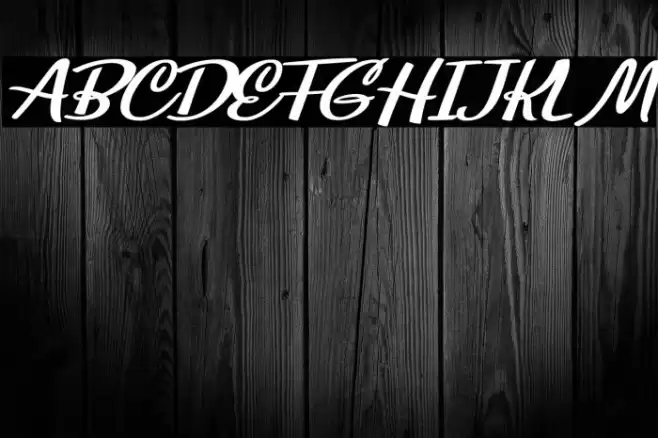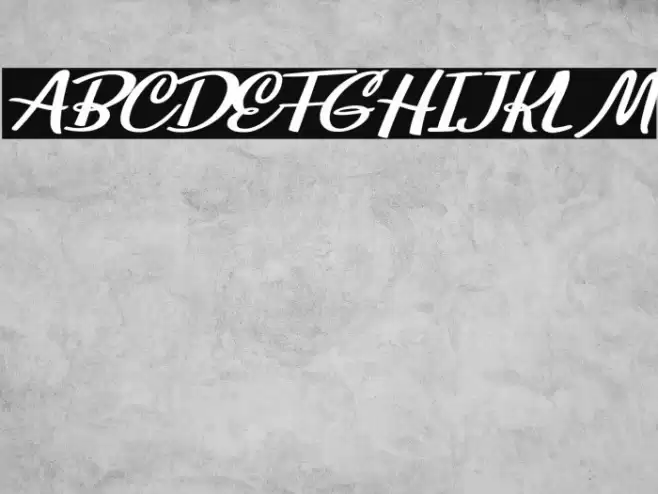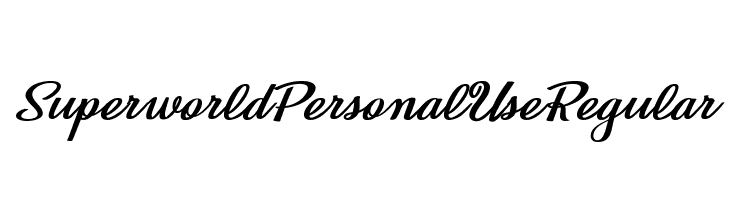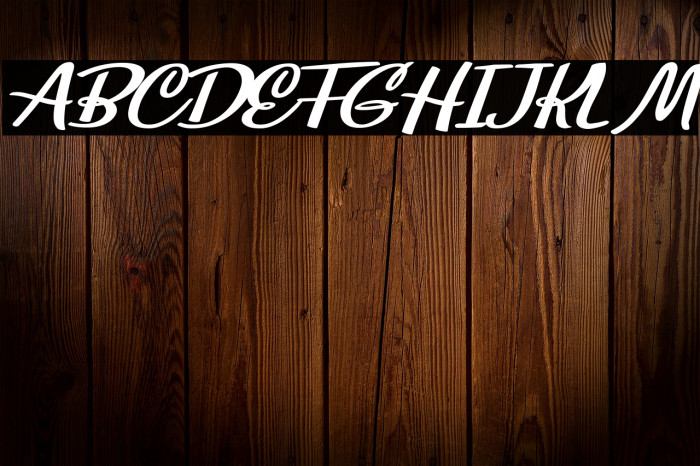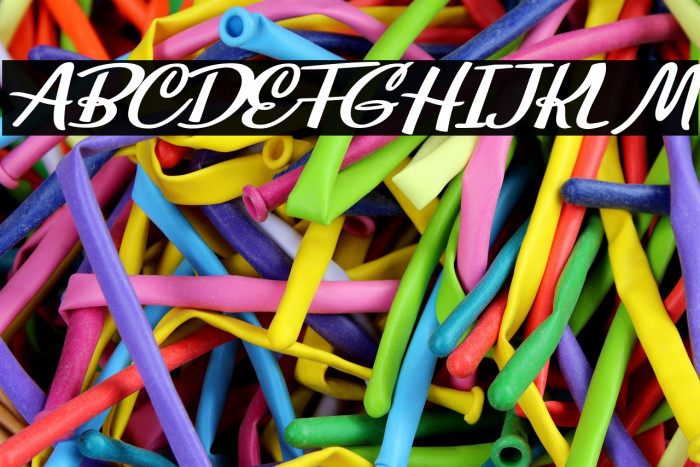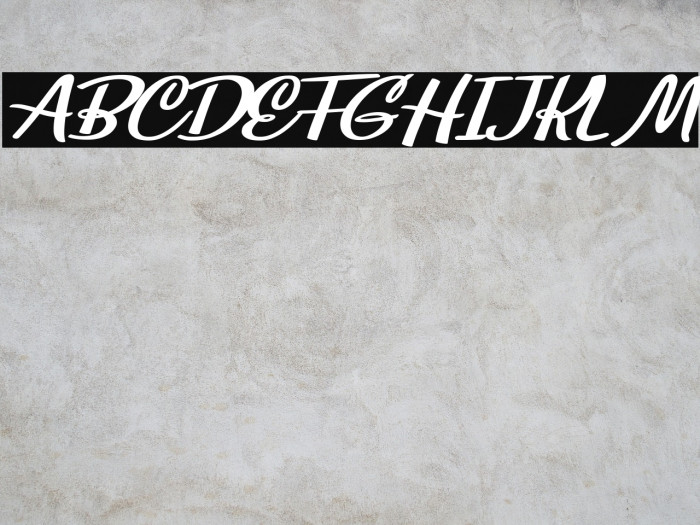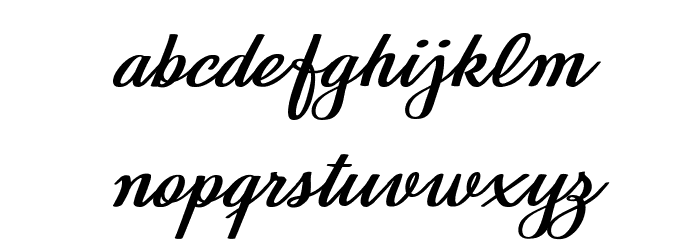
Superworld Personal Use Regular Font
Superworld Personal Use Regular Description
This font features a dynamic and elegant script style, characterized by its flowing, cursive letterforms. The uppercase letters exhibit a bold and sweeping design, with distinctive loops and flourishes that convey a sense of movement and sophistication. The lowercase letters maintain a consistent style, offering smooth connections between characters, enhancing readability while preserving the decorative nature. The numerals and special characters are designed to complement the overall script aesthetic, ensuring a cohesive look across all text. This font is ideal for projects that require a touch of elegance and flair.
A dynamic and elegant script font with flowing, cursive letterforms from Uncategorized fonts.
- Overall Style: Elegant, Decorative